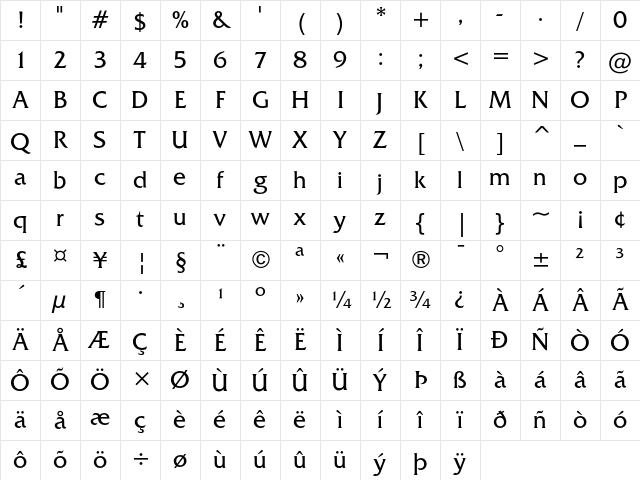
ITC Friz Quadrata Regular
ITC Friz Quadrata Family
ITC Friz Quadrata Regular
ITC Friz Quadrata Regular Font Preview
ITC Friz Quadrata Regular Uppercase Preview
ITC Friz Quadrata Regular Lowercase Preview
ITC Friz Quadrata Regular Numeric Preview
ITC Friz Quadrata Regular Character Map
Complete ITC Friz Quadrata Regular glyph index. Displaying only characters natively supported by ITC Friz Quadrata Regular font.
ITC Friz Quadrata Regular Character Map
Design Context for ITC Friz Quadrata
ITC Friz Quadrata is a composed and adaptable typeface that performs quietly and consistently across a wide range of design contexts.